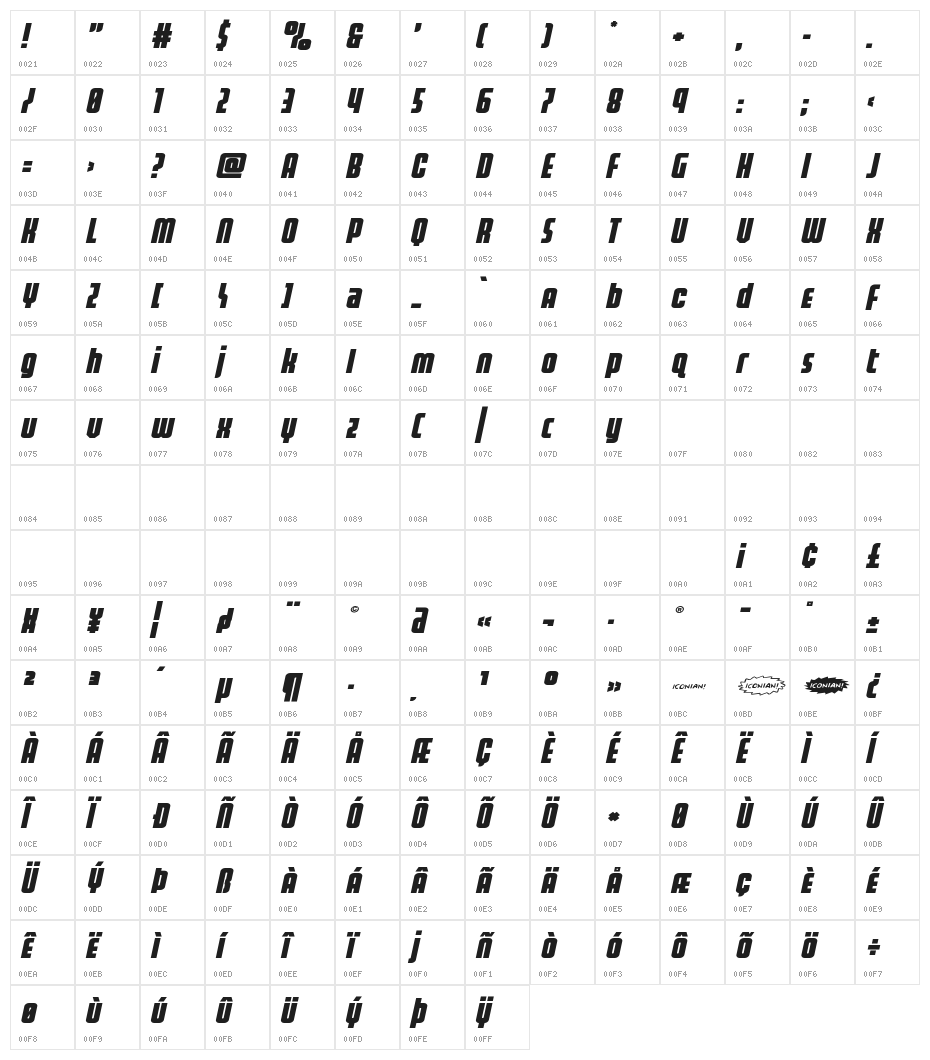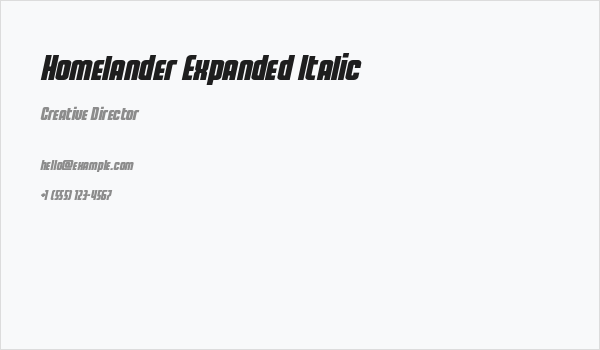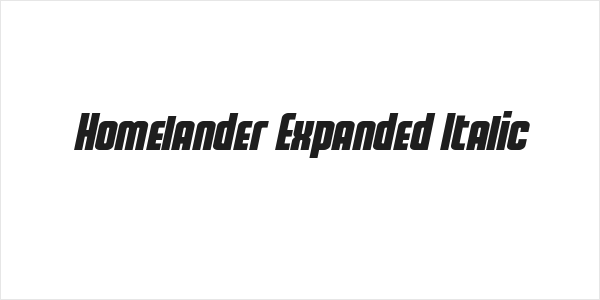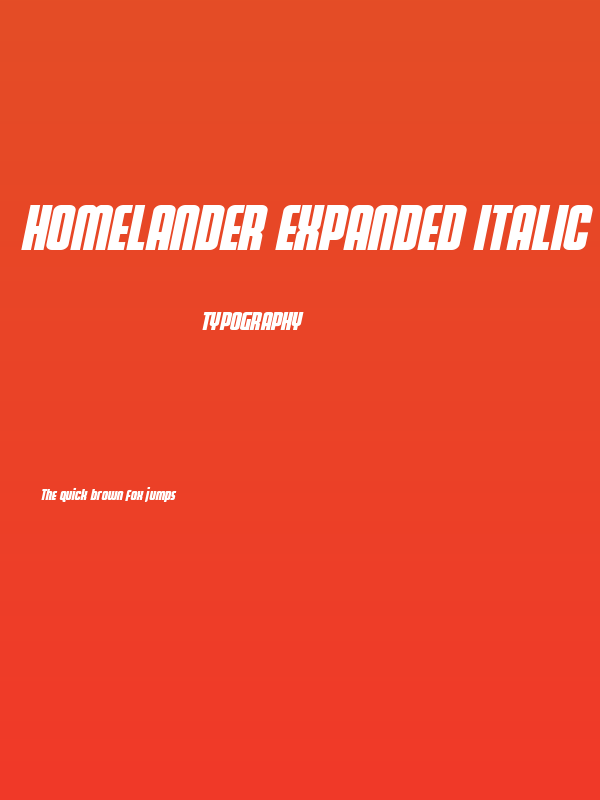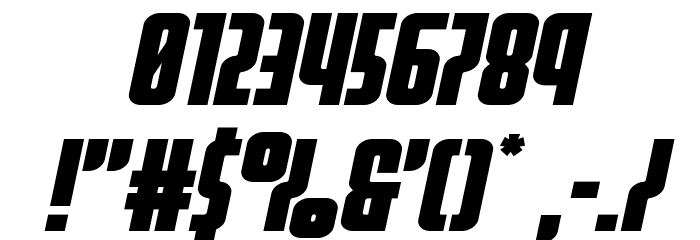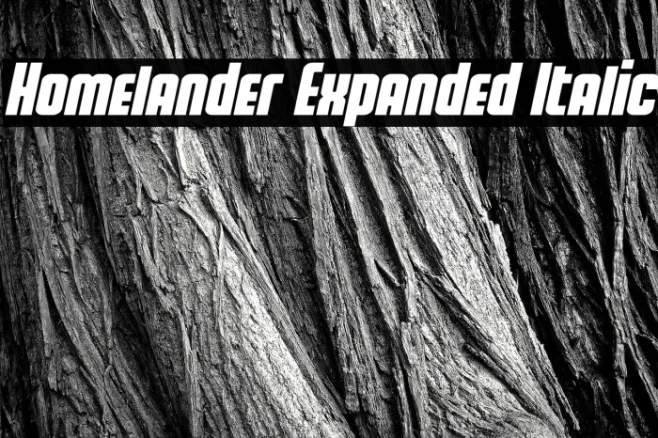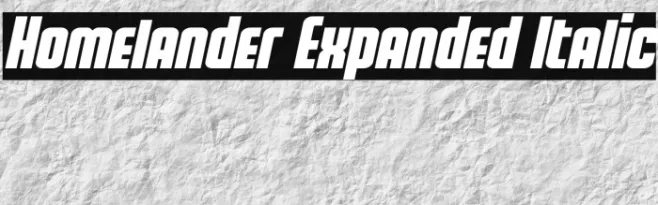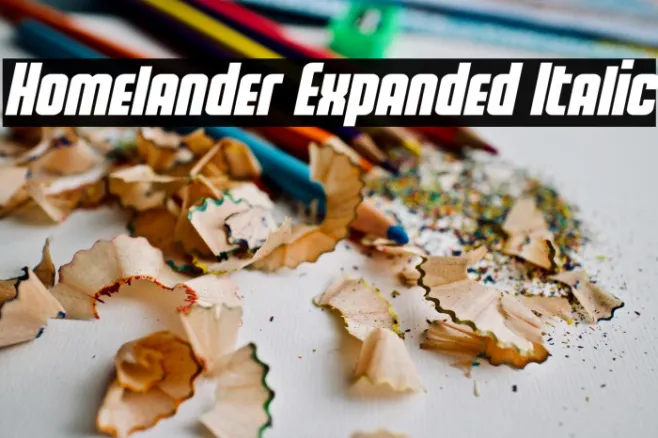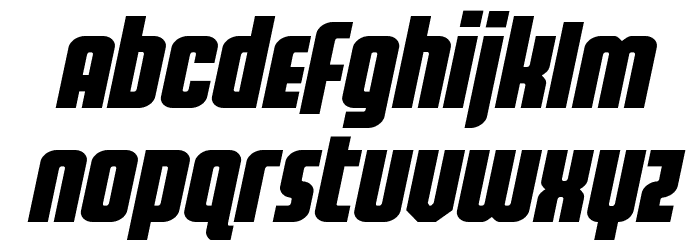
Homelander Expanded Italic Font
Homelander Expanded Italic Description
This font features a bold and dynamic design with a distinctly modern flair. The characters are expanded and italicized, giving them a forward-leaning, energetic appearance. The strokes are thick and consistent, contributing to a strong visual impact. The uppercase and lowercase letters maintain a uniform style, while the numerals and special characters are crafted to match the overall aesthetic. The font's expanded width enhances its readability and makes it suitable for attention-grabbing headlines or titles. Its boldness and italic slant convey a sense of urgency and movement, making it ideal for projects that require a contemporary and assertive look.
| Proposed Projects | Ideal for sports branding, dynamic posters, modern advertising, and impactful headlines. |